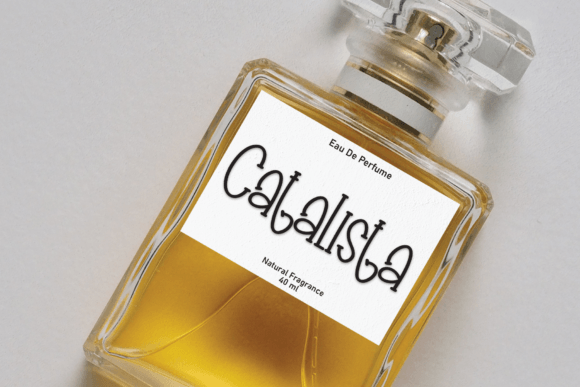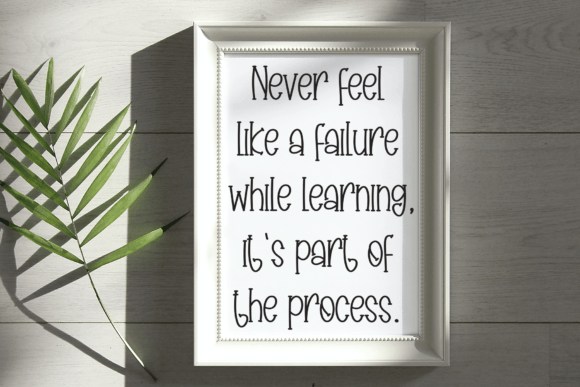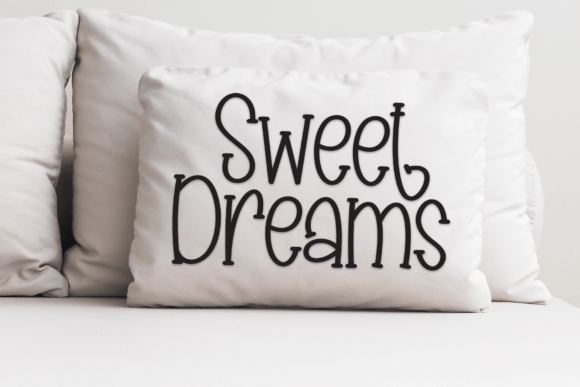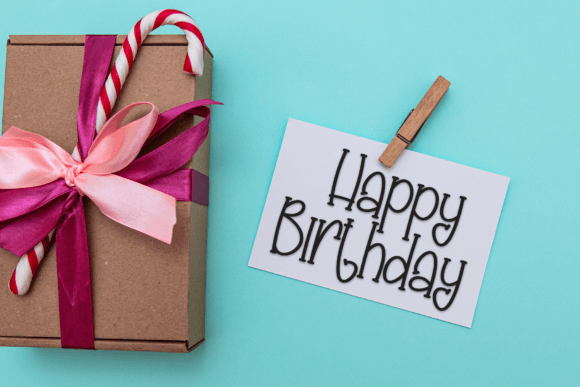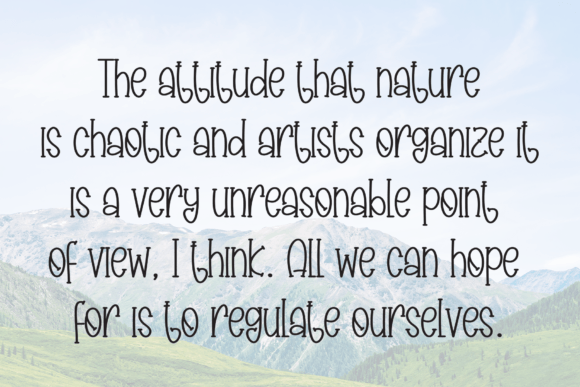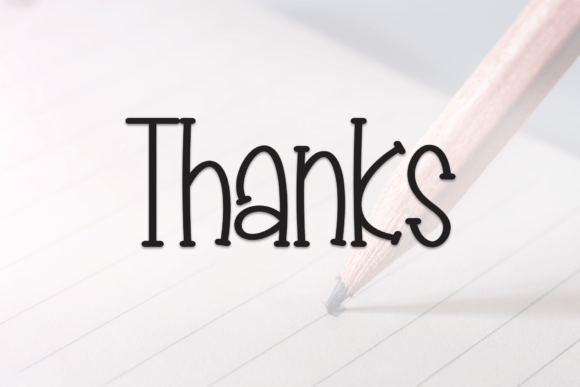
The Joy of Handwritten Design
Have you ever found yourself scribbling notes in a notebook, only to realize that the way you write is uniquely yours? That’s the magic of handwriting – it’s a personal reflection of our style and personality. As designers, we’re always on the lookout for ways to inject a little more personality into our work, and that’s where the Autography Font comes in.
This sweet and friendly handwritten font is designed to capture the essence of a handwritten note, making it the perfect addition to any design project. With its natural and unique style, the Autography Font is incredibly versatile, allowing designers to let their imagination run wild and create something truly special. Whether you’re working on a branding project, a social media campaign, or simply a personal project, the Autography Font is sure to bring a touch of warmth and personality to your design.
- Unique Characteristics: Autography Font features a unique blend of modern and vintage elements, with elegant, flowing lines and subtle texture, making it suitable for a wide range of applications, including typography, graphic design, and publishing.
- Legibility: The font is designed for optimal legibility, with clear and readable text at various font sizes and resolutions, making it an excellent choice for body text and headings.
Autography Font Review
Overall, I found the Autography Font to be a solid, yet not particularly impressive addition to the world of typography. While it does offer some unique features, it falls short in a few areas that may deter designers from using it.
- Autography’s brush-stroke style is reminiscent of handwritten text, making it a great choice for projects that require a more personal touch.
- The font is highly customizable, allowing users to adjust the line width, spacing, and other characteristics to suit their needs.
- Autography supports a wide range of languages, making it a viable option for international projects.
- The font’s irregularities can make it difficult to read at smaller font sizes or in situations where legibility is crucial.
- The brush-stroke style can be overwhelming or distracting in certain contexts, particularly when used extensively throughout a design.
- The font’s customization options, while extensive, can be overwhelming for less experienced designers.
Ultimately, Autography Font is a decent choice for designers looking for a unique, handwritten style. However, its limitations and potential for visual overload may make it less desirable for more critical or formal projects.
Autography Font is ideal for:
- Creative titles and headings.
- Personalized invitations and cards.
- Customized social media graphics.